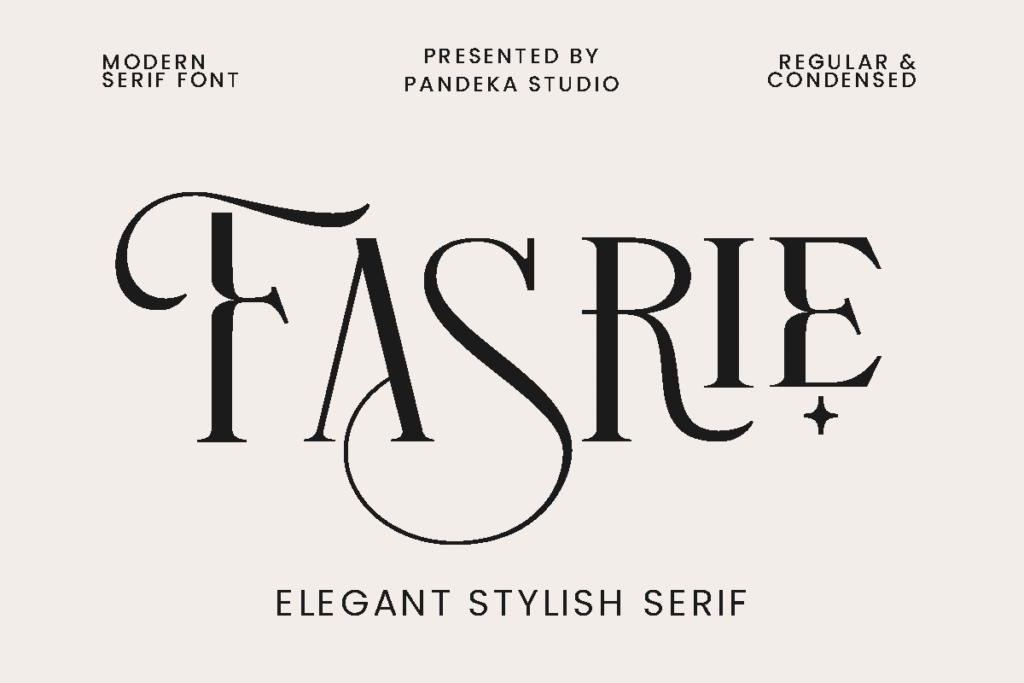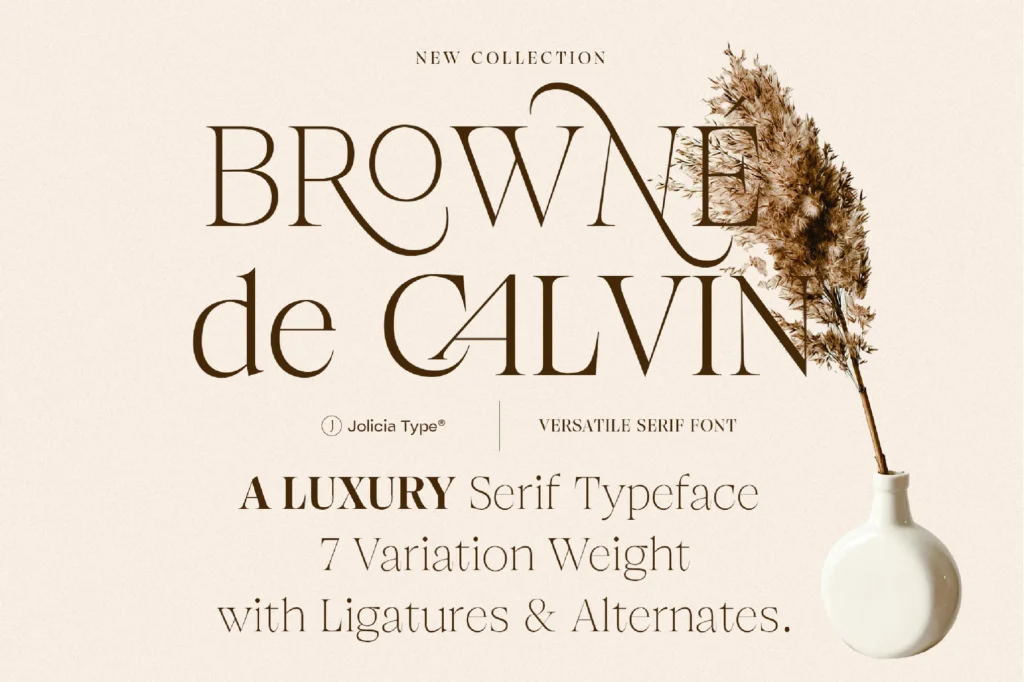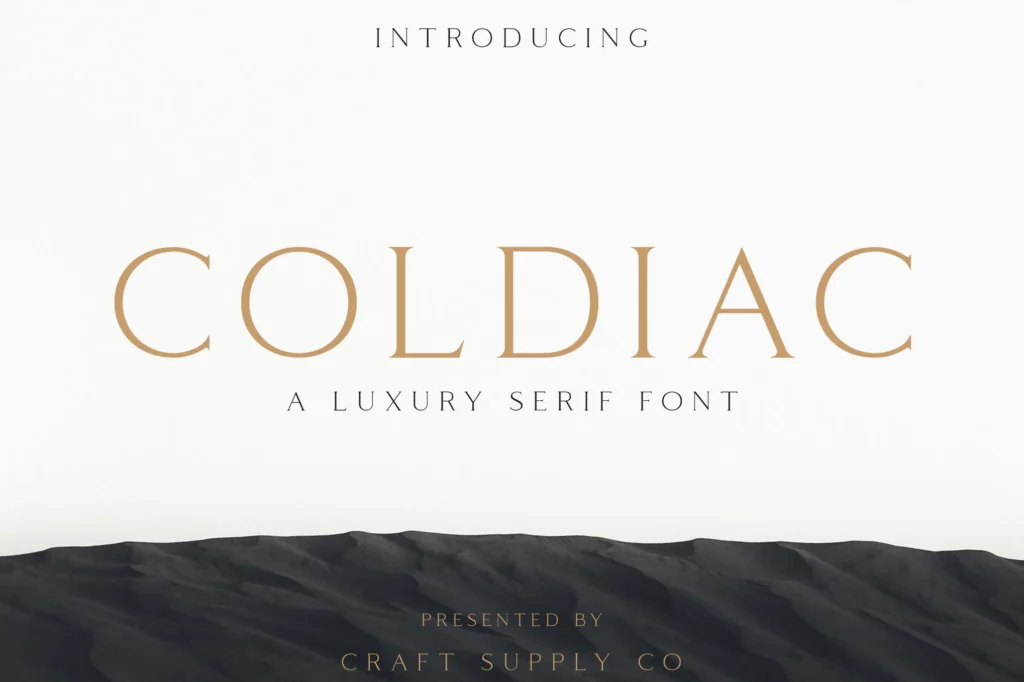
20MayBest Elegant Luxury Fonts for Designers in 2025
When it comes to luxury design, the font you choose speaks volumes. It’s not just about the words—it’s about the feeling. Fonts set the tone, create an emotional response, and define a brand’s personality. You should pick one of the best, elegant luxury fonts.
Why Fonts Matter in Luxury Branding
Think about the biggest luxury brands—Chanel, Gucci, Dior. Their fonts are clean, bold, and sophisticated. A luxury font instantly signals prestige. It’s the visual handshake that says, “We’re high-end, exclusive, and worth it.”
The Evolution of Elegant Typography
Luxury typography has evolved. Gone are the days of overly ornate scripts. Now, modern luxury blends minimalism with elegance, boldness with subtlety. Fonts like Lavish, Glossy, Mayluxa, and Prestige Edition reflect this balance beautifully.
1. Lavish – Modern Luxury Logo Font
Overview of Lavish
Lavish is the epitome of modern luxury. It’s designed to turn heads while maintaining an understated elegance. Whether you’re crafting a logo or designing high-end packaging, Lavish delivers a refined aesthetic.
Key Features of Lavish
Contemporary Style Meets Timeless Sophistication
Lavish strikes the perfect balance between modern design trends and timeless class. Its sleek lines and subtle curves make it adaptable for various luxury branding needs.
Versatility Across Branding Projects
From luxury logos to premium event invitations, Lavish fits effortlessly into any project needing a sophisticated edge.
Best Uses for Lavish
Luxury Brand Logos
Want your logo to whisper elegance but command attention? Lavish is ideal for luxury fashion, jewelry, or beauty brands.
Premium Product Packaging
Imagine your product wrapped in packaging that oozes sophistication. Lavish elevates the simplest packaging into something worth displaying.
Elegant Event Invitations
Hosting an exclusive gala or wedding? Lavish creates invitations that set the mood for a classy affair.
Why Designers Love Lavish
Designers adore Lavish because it’s elegant yet approachable, stylish yet versatile. It’s the secret ingredient for making designs look expensive without being overdone.
2. Glossy – Modern Elegant Luxury Font
Overview of Glossy
Glossy brings sleek refinement to your designs, adding a touch of modern elegance. Whether used in editorial work or upscale branding, Glossy is the perfect choice for those seeking sophistication with a timeless flair.
Key Features of Glossy
Modern Elegance with Timeless Appeal
Glossy blends contemporary design with classic sophistication. Its graceful curves and balanced structure offer a timeless appeal that transcends design trends.
Multilingual Support and Versatility
With extensive multilingual support, Glossy adapts effortlessly to different design projects, ensuring global versatility.
Best Uses for Glossy
High-End Fashion Branding
Glossy’s chic style is perfect for fashion brands seeking an elegant, polished look. It’s ideal for creating logos and promotional materials that stand out.
Luxury Editorial Design
For magazines or high-end editorials, Glossy elevates text to create a distinguished, high-quality visual appeal.
Premium Packaging
If you’re looking for a sleek and classy font for premium product packaging, Glossy adds that extra touch of sophistication.
Why Designers Love Glossy
Designers love Glossy because of its balance between modern elegance and versatility. It’s chic yet functional, making it ideal for a wide range of upscale design projects.
3. Mayluxa – Elegant Luxury Font
Overview of Mayluxa
Mayluxa is a bold yet refined luxury font. With its modern design and authentic feel, it’s perfect for those seeking sophistication and versatility in their designs.
Key Features of Mayluxa
Authentic Elegance for Every Design
Mayluxa brings a unique touch to luxury branding, combining modern design elements with an authentic, timeless style.
Versatility Across Various Media
Whether you’re designing logos, posters, or invitations, Mayluxa adapts beautifully to multiple platforms and projects.
Best Uses for Mayluxa
Branding and Logos
Mayluxa is perfect for high-end brands that want to convey luxury and authenticity. Its elegant yet approachable design is ideal for creating impactful logos.
Event Invitations
For weddings, galas, or exclusive events, Mayluxa creates invitations that instantly set the tone for sophistication.
Stationery and Print
Mayluxa works wonders on stationery, business cards, and print materials, ensuring every detail looks luxurious.
Why Designers Love Mayluxa
Designers appreciate Mayluxa for its combination of modern style and timeless sophistication. It’s versatile enough for various projects while still making a bold statement of luxury.
Clean, Elegant Design
Fasrie’s refined curves and lines create a sophisticated, modern look for luxury branding.
OpenType Features
Equipped with ligatures, alternates, and multilingual support for versatile creative applications.
Perfect for Display and Branding
From magazine titles to packaging, Fasrie delivers elegance and class across various platforms.